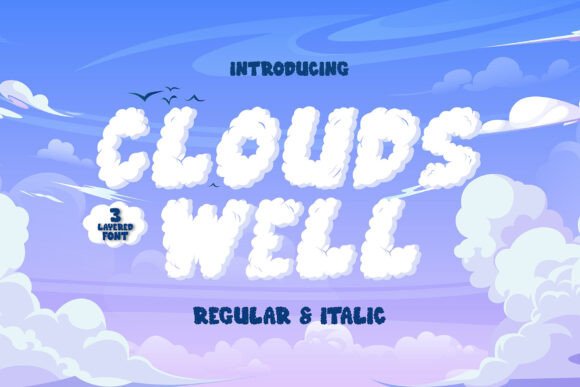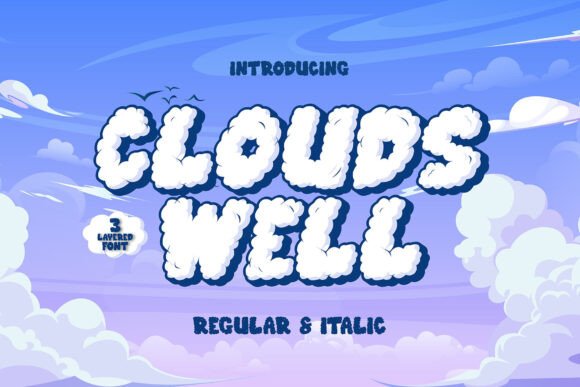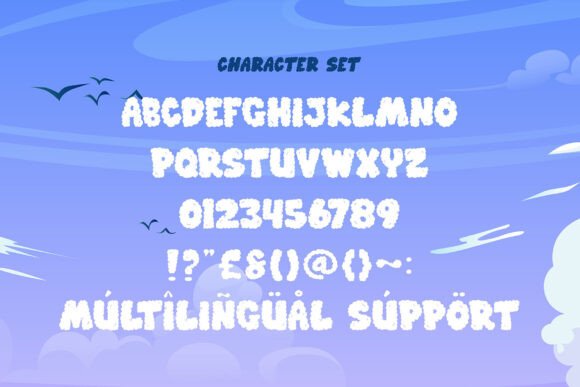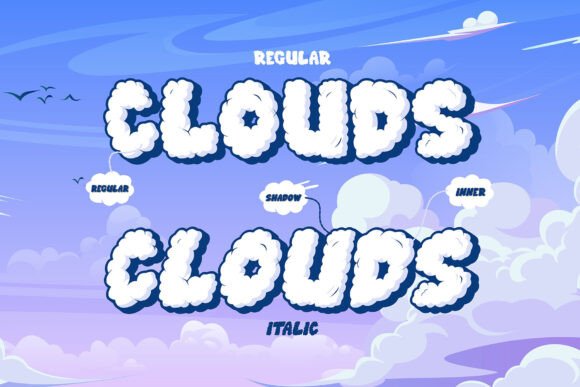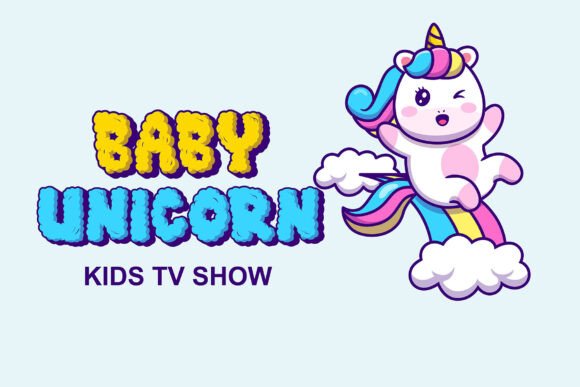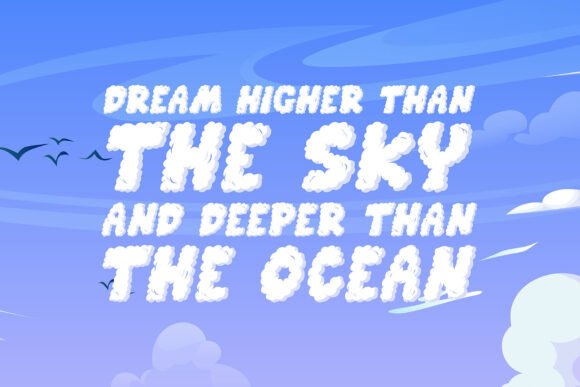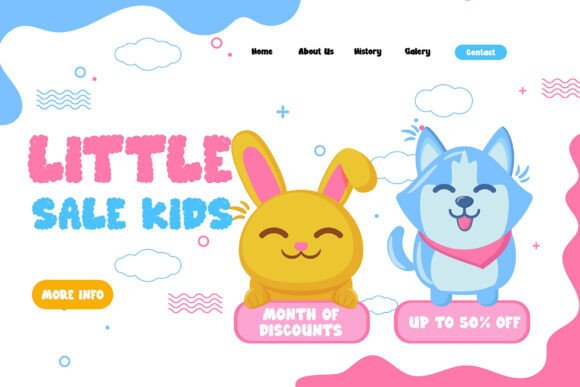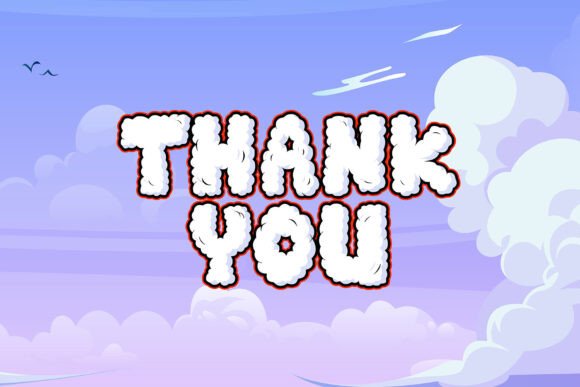
Clouds Well Font
Embark on a whimsical flight of creativity with Clouds Well, a layered 3D display font designed to infuse your work with a gentle, dreamlike charm. Inspired by the ethereal beauty of clouds, this one-of-a-kind design is set to elevate your projects to a realm of softness and playfulness. With styles such as solid standing as the foundational layer, interspersed with the added depth of shadow and inner shadow variants, you’ll find an array of choices to inventively layer and design. Each element injects an exciting dimension and traces of movement, piloting visually exceptional designs.
Clouds Well extends its creative reach by offering both regular and italic versions, lending your projects diversity and the freedom to play with form. From whimsical posters to child-friendly book covers, from breezy branding to playful packaging – any project requiring an imaginative, lighthearted feel will surely benefit from the puffy charm of Clouds Well. If you’re aiming for a soft, floating effect or eye-catching layered dynamics, Clouds Well opens up a universe of design possibilities with its charismatic appeal.